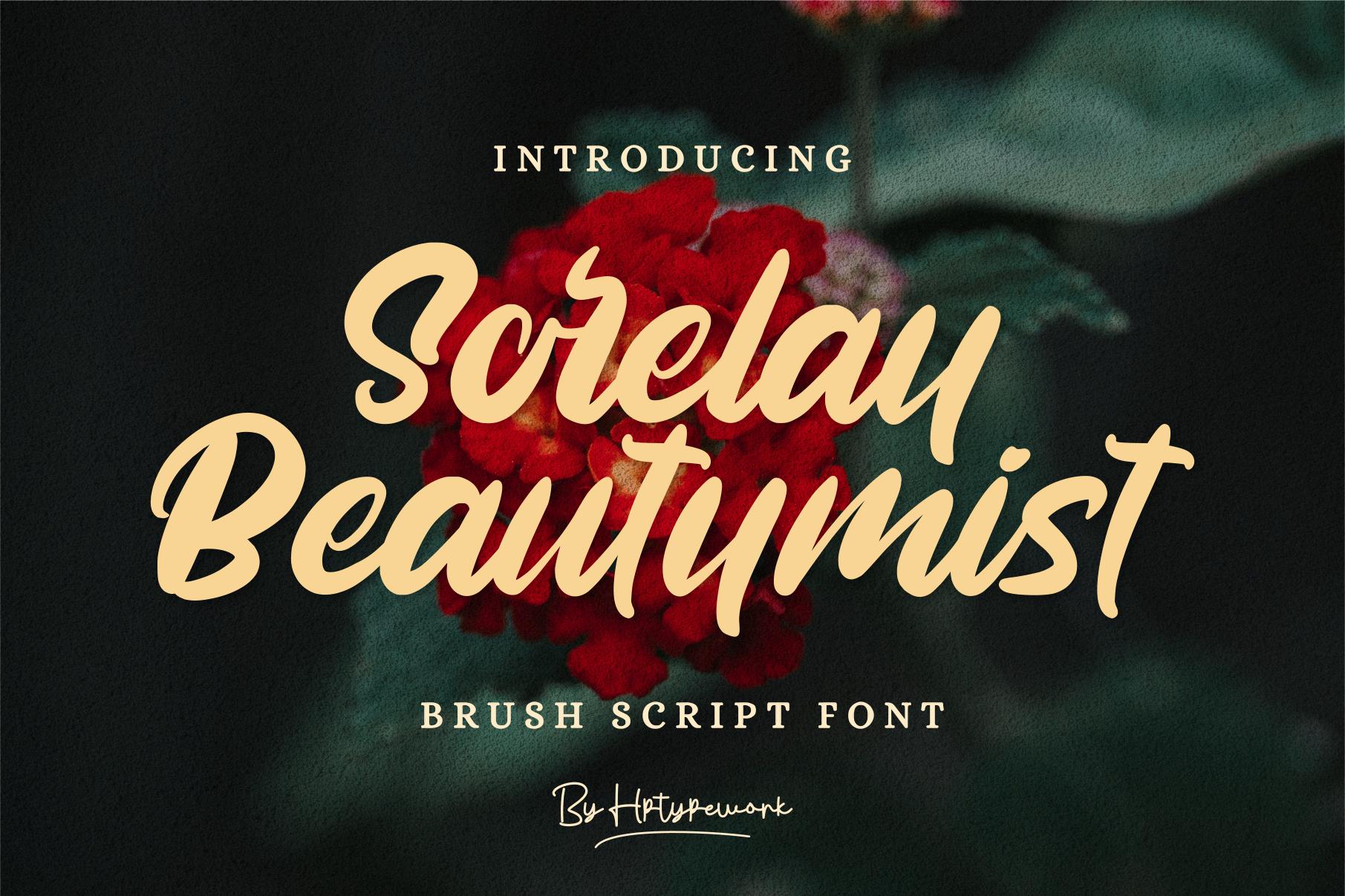
Sorelay Beautymist Font Description
Sorelay Beautymist is an adorable quirky handwritten font. It will add an incredibly joyful touch to your designs. Fall in love with its playful style and use it to create beautiful stationary art, eye-catching social media posts, and much more!